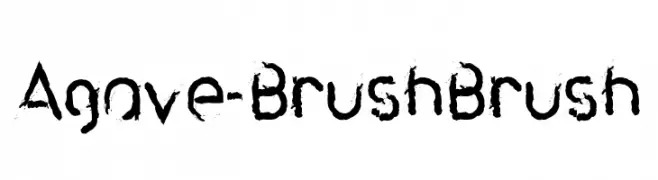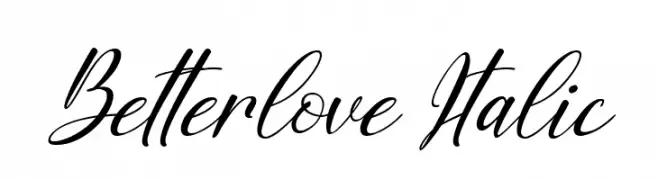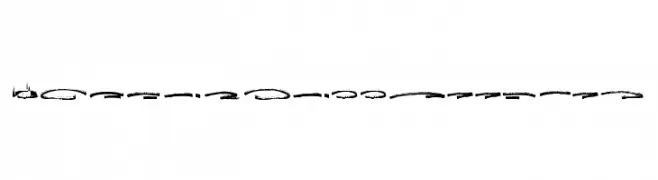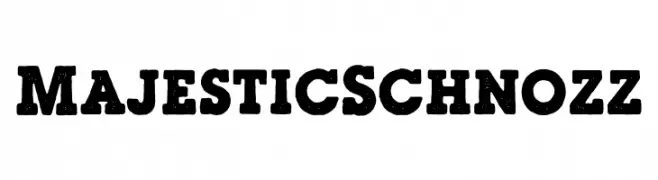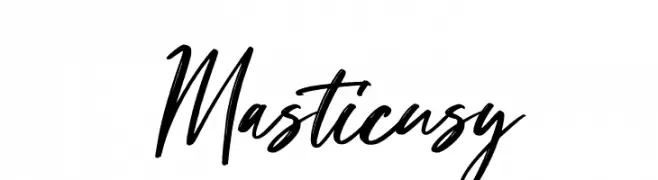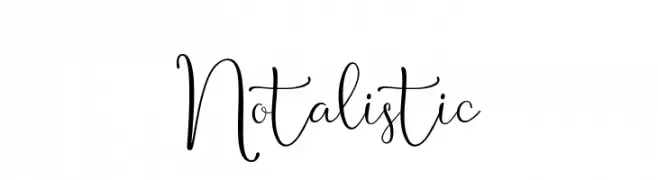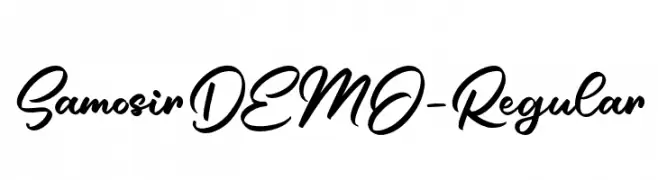
A decorative, hand-drawn font with fluid, dynamic strokes and artistic flair.
A whimsical and artistic script font with flowing, interconnected letters and playful loops.
A cursive, handwritten font with elegant, flowing strokes.
A cursive font with elegant, flowing strokes and artistic style.
A sophisticated, cursive script font with elegant, flowing strokes.
A dynamic and expressive script font with fluid, cursive strokes.
A bold, textured font with a vintage, distressed style.
An elegant, flowing script font with intricate loops and a sophisticated style.
A sophisticated, elegant handwritten script with fluid, continuous strokes.
A bold, brush-textured font with an artistic, hand-painted style.